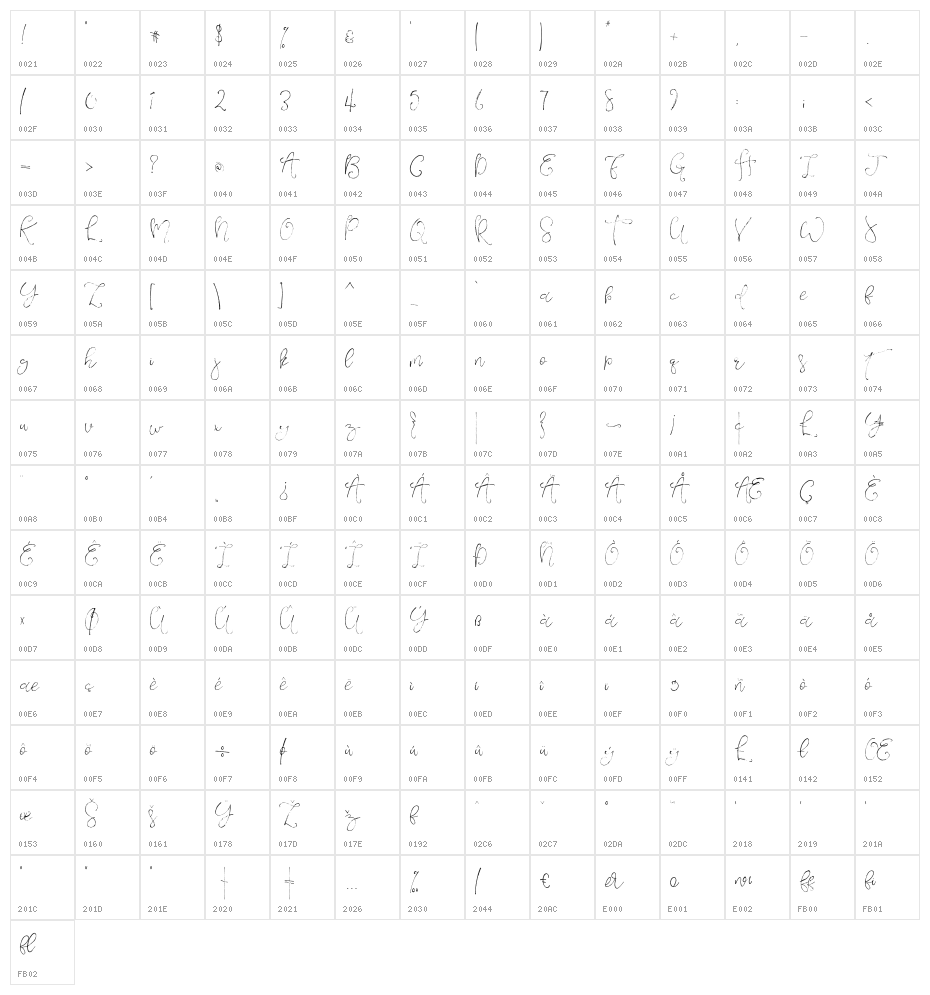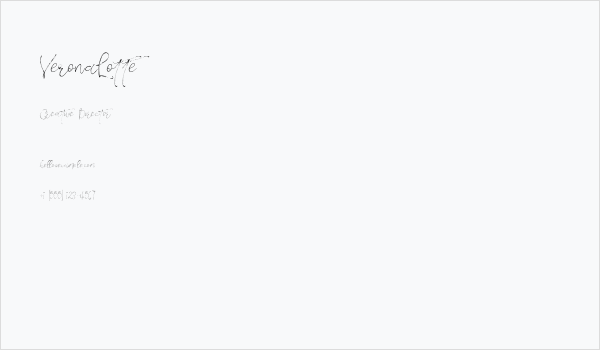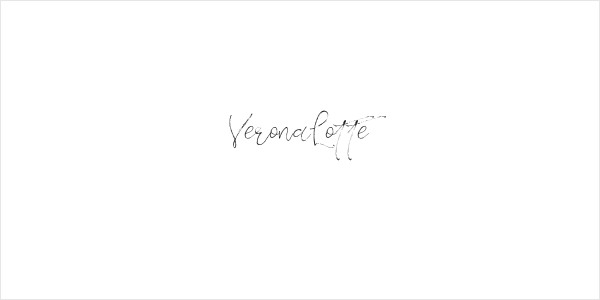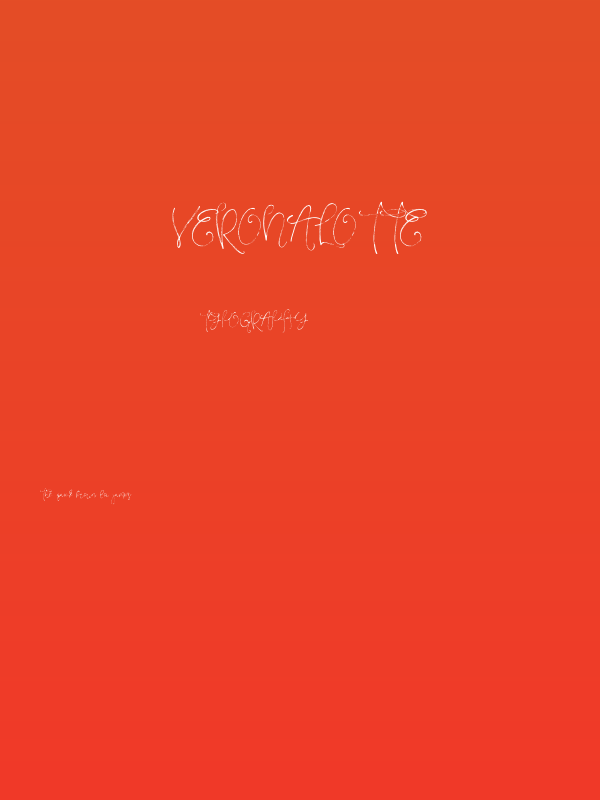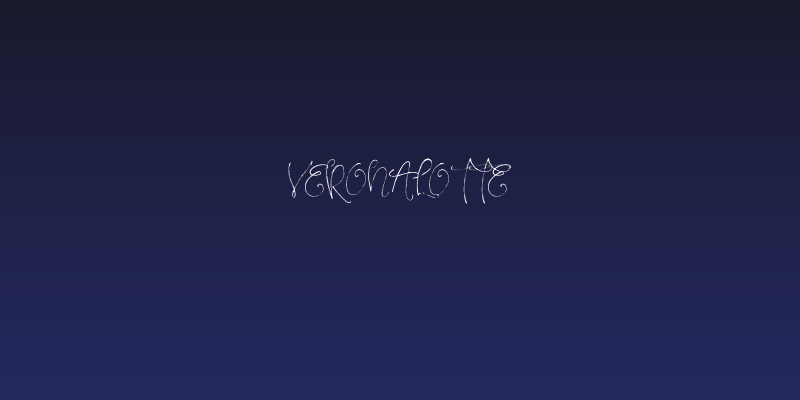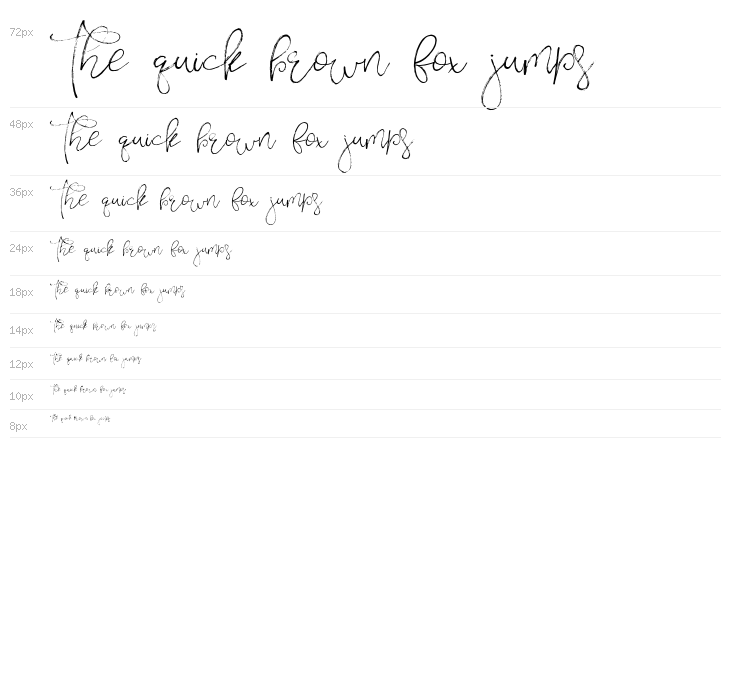
VeronaLotte Font
VeronaLotte Description
This font features an elegant and flowing script style, characterized by its delicate, hand-drawn appearance. The letters are connected with smooth, sweeping curves, giving it a graceful and artistic look. The uppercase letters are bold and expressive, while the lowercase letters maintain a consistent flow, enhancing readability. The numbers and special characters follow the same fluid style, making them cohesive with the alphabet. This font exudes a sense of sophistication and creativity, ideal for projects that require a personal touch.
| Proposed Projects | Ideal for wedding invitations, greeting cards, personal branding, and artistic projects. |